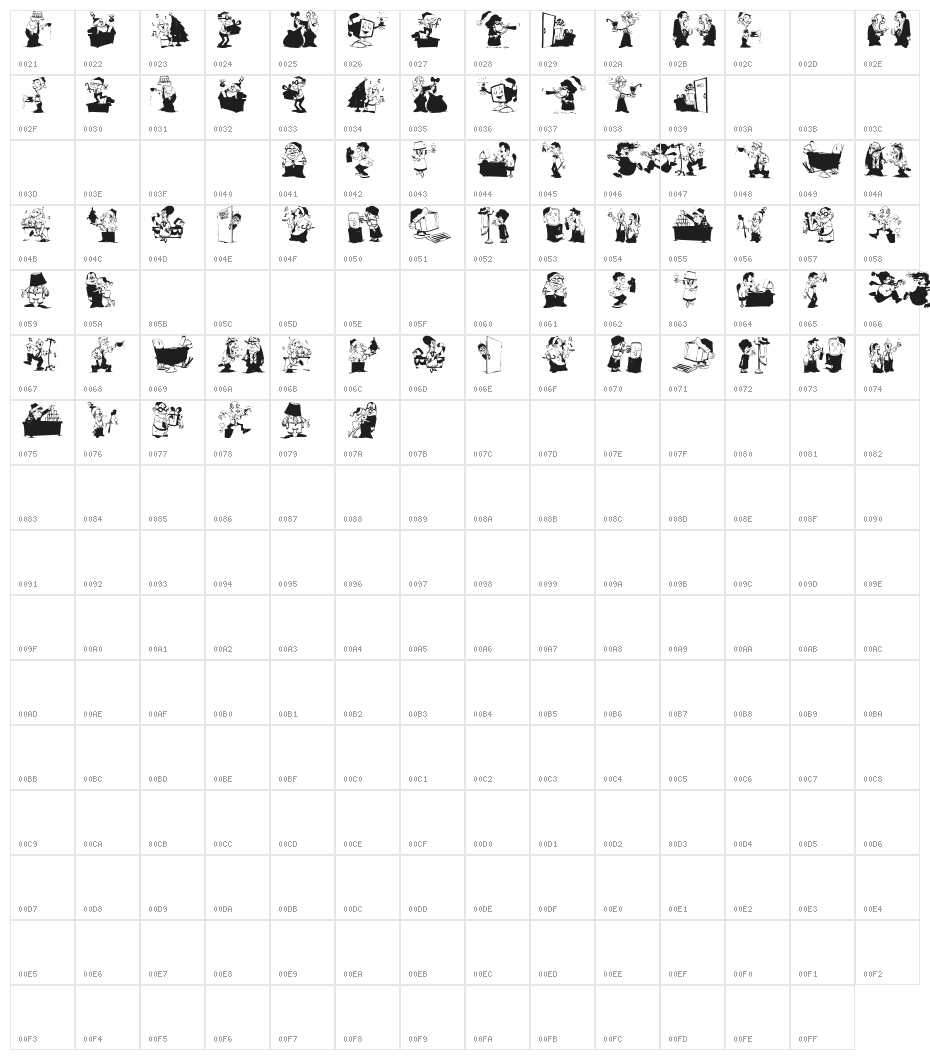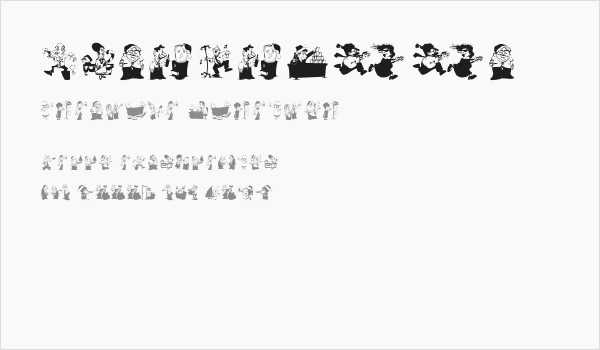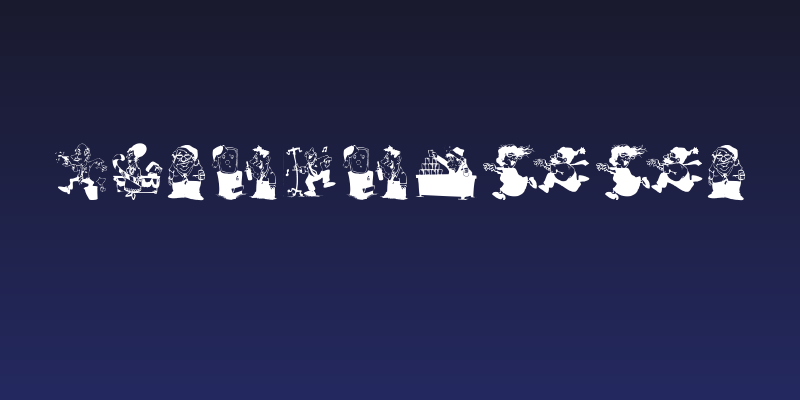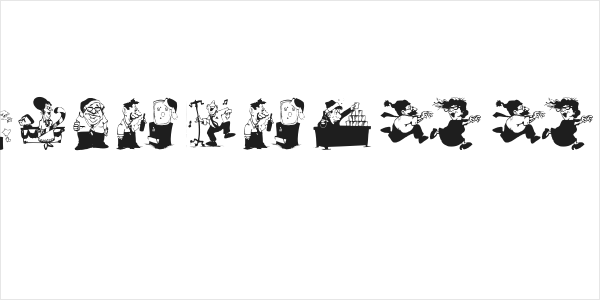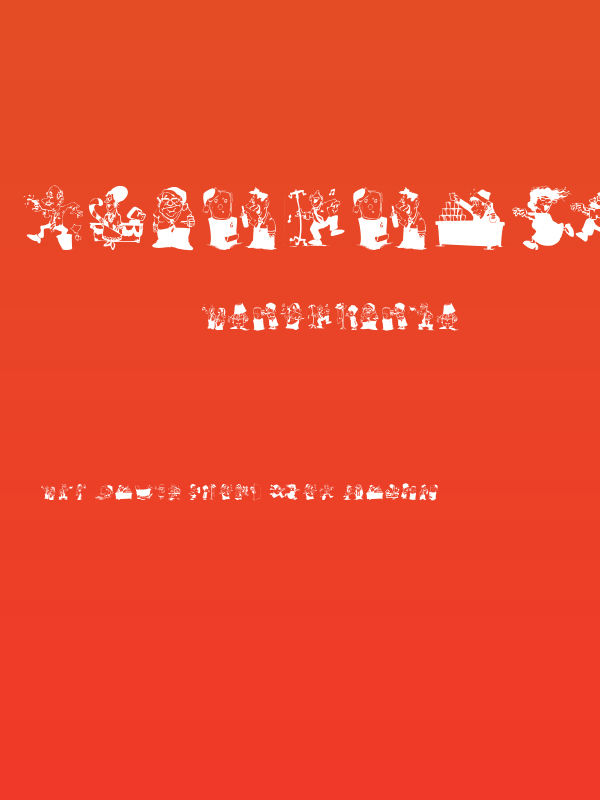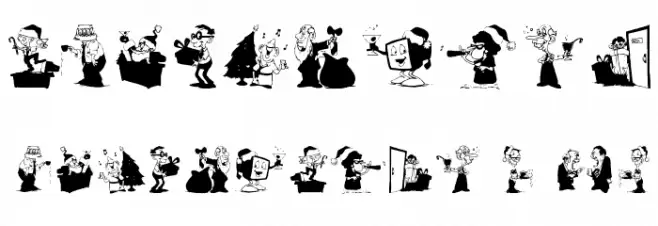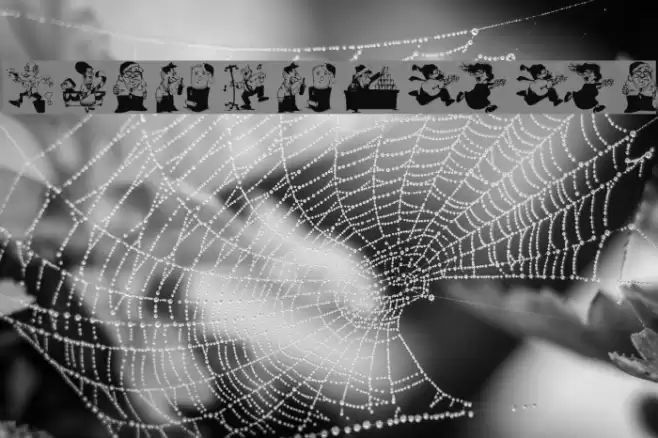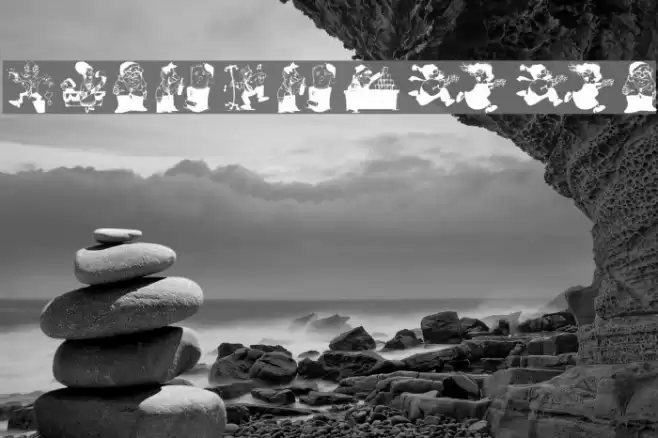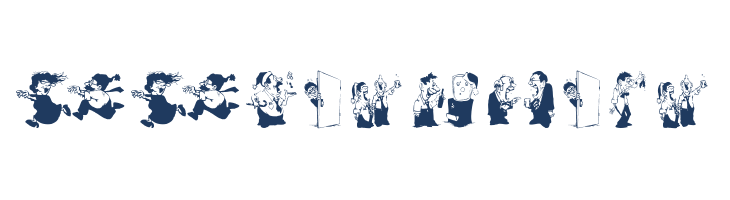
XmasGsuffa Font
XmasGsuffa Description
This font is a whimsical and playful collection of cartoon-style characters, each representing a letter or symbol. The characters are depicted in various humorous and festive scenarios, adding a lively and entertaining element to the design. The style is highly decorative, with each character featuring exaggerated expressions and dynamic poses. This font is perfect for adding a touch of fun and creativity to any project, making it ideal for holiday-themed designs or playful branding.
| Proposed Projects | Ideal for holiday cards, children's books, playful branding, and festive event invitations. |